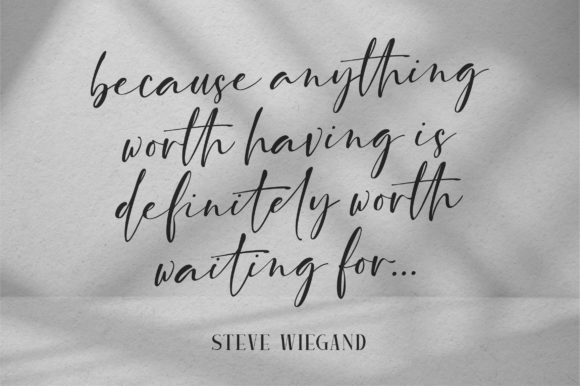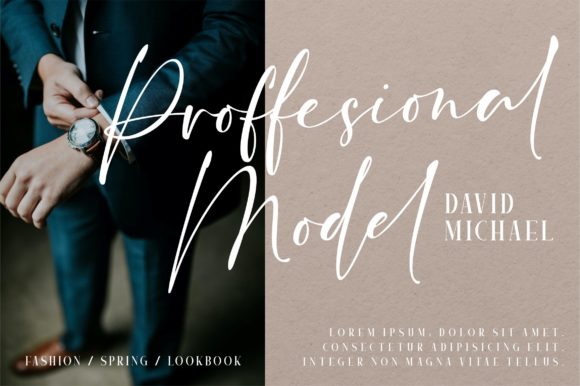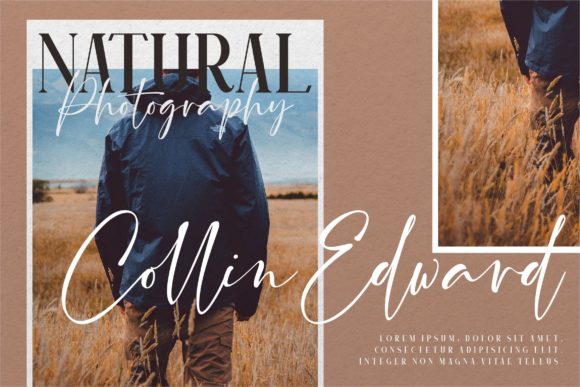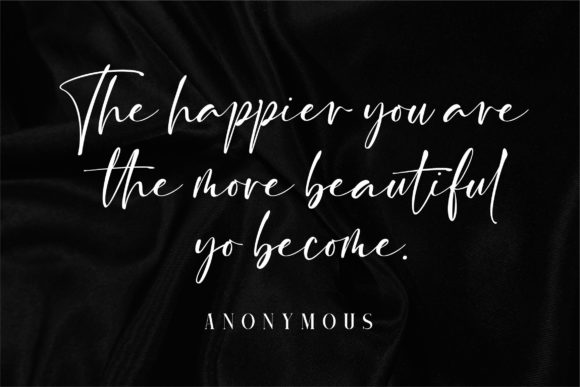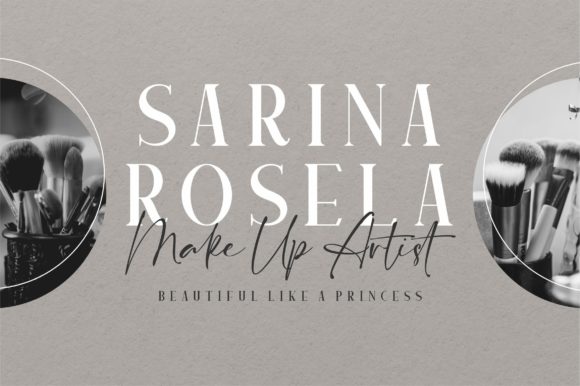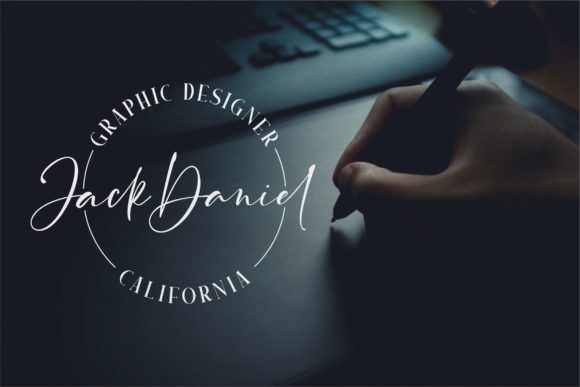
Introduction to British Castilla Font
Imagine you’re working on a design project and you’re struggling to find the perfect font to elevate your creative vision. You’ve browsed through countless free download options, but nothing seems to capture the essence of your design. That’s where the British Castilla Font comes in – a beautiful duo font that combines the elegance of script and the sophistication of slab serif.
Whether you’re working on a high-quality design resource or a creative project, the British Castilla Font is an invaluable asset that can make all the difference. With its transparent background and PUA encoding, you’ll have access to all the glyphs and swashes you need to bring your design to life.
As a valuable addition to any designer’s toolkit, the British Castilla Font is a game-changer that can take your designs to the next level.
Key Features of British Castilla Font
- High-quality design resource ideal for creative projects, offering a unique and sophisticated aesthetic.
- Features a high-resolution design, suitable for use in large-scale creative projects, such as signage, billboards, and more.
- Includes a comprehensive character set, covering a wide range of languages and special characters.
- Designed to be highly legible and versatile, making it suitable for use in various design contexts, from corporate branding to editorial content.
Honest Review: British Castilla Font
I recently stumbled upon the British Castilla Font and I must say, it’s been a game-changer for my creative projects. The font is a high-quality design resource that offers a unique blend of traditional and modern styles.
Here are some of the things that I love about the British Castilla Font:
- ✨ High-quality design: The font is incredibly detailed and has a professional finish.
- ✨ Transparent background: The font has a transparent background, making it easy to overlay on any design element.
However, there are a few limitations to the British Castilla Font:
- ⚠️ Limited font sizes: The font only comes in a limited range of sizes, which can be restrictive for larger design projects.
- ⚠️ No bold/italic options: Unfortunately, the font does not have bold or italic options, which can limit its versatility.
Overall, I’m really impressed with the British Castilla Font. While it may have some limitations, its high-quality design and free download make it a valuable resource for any designer working on a creative project.
The British Castilla Font is ideal for various design projects, including logos, business cards, and website headers. Its elegant and sophisticated design makes it perfect for formal and creative applications.